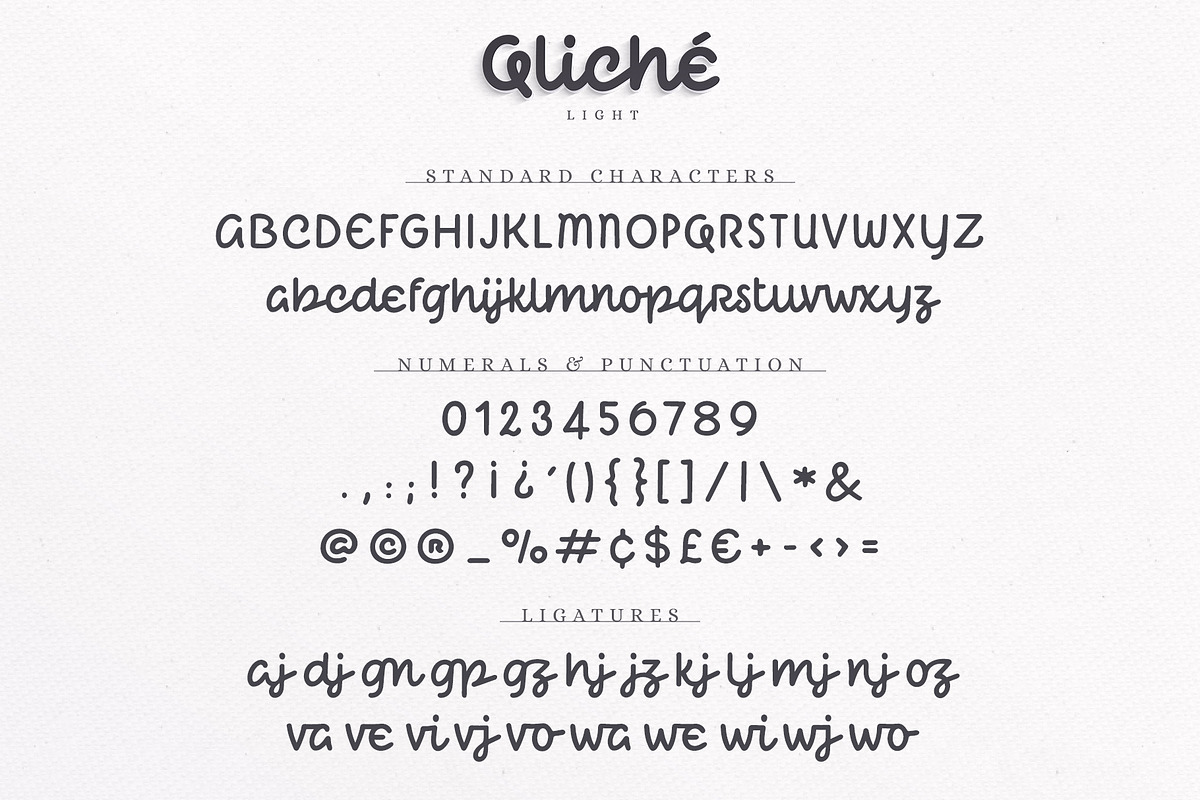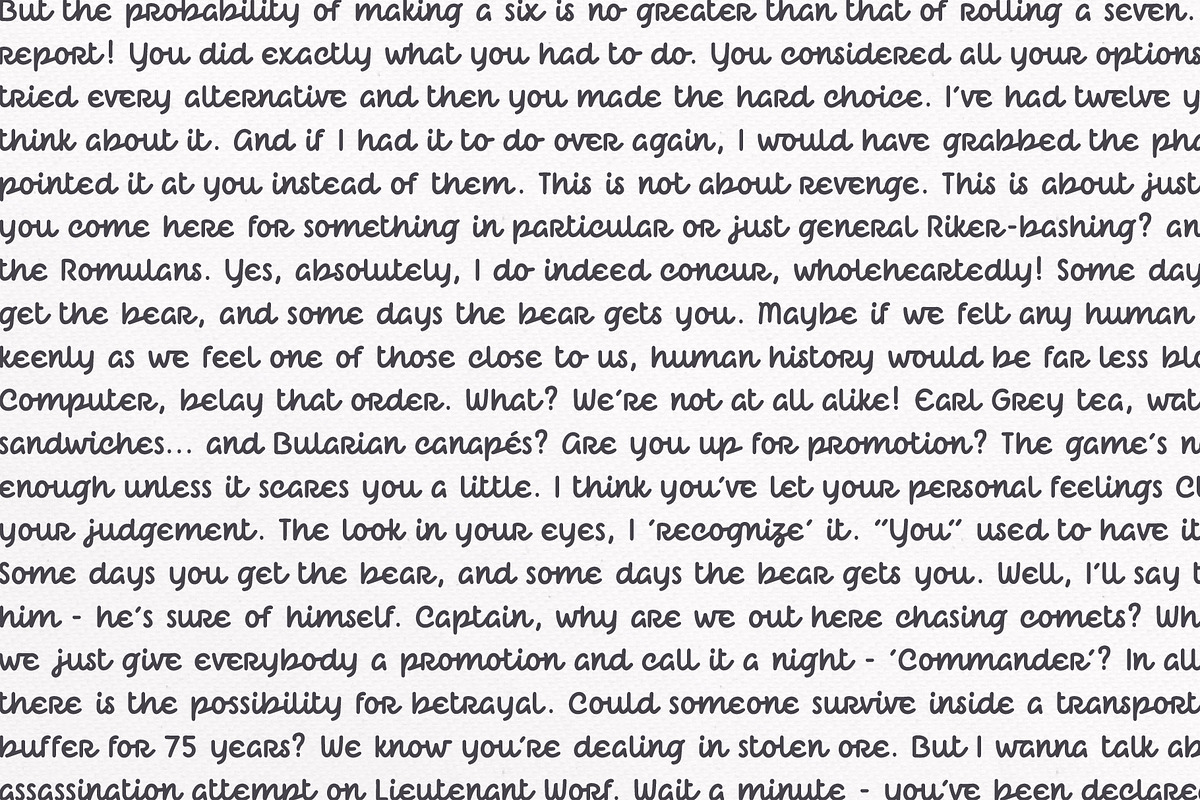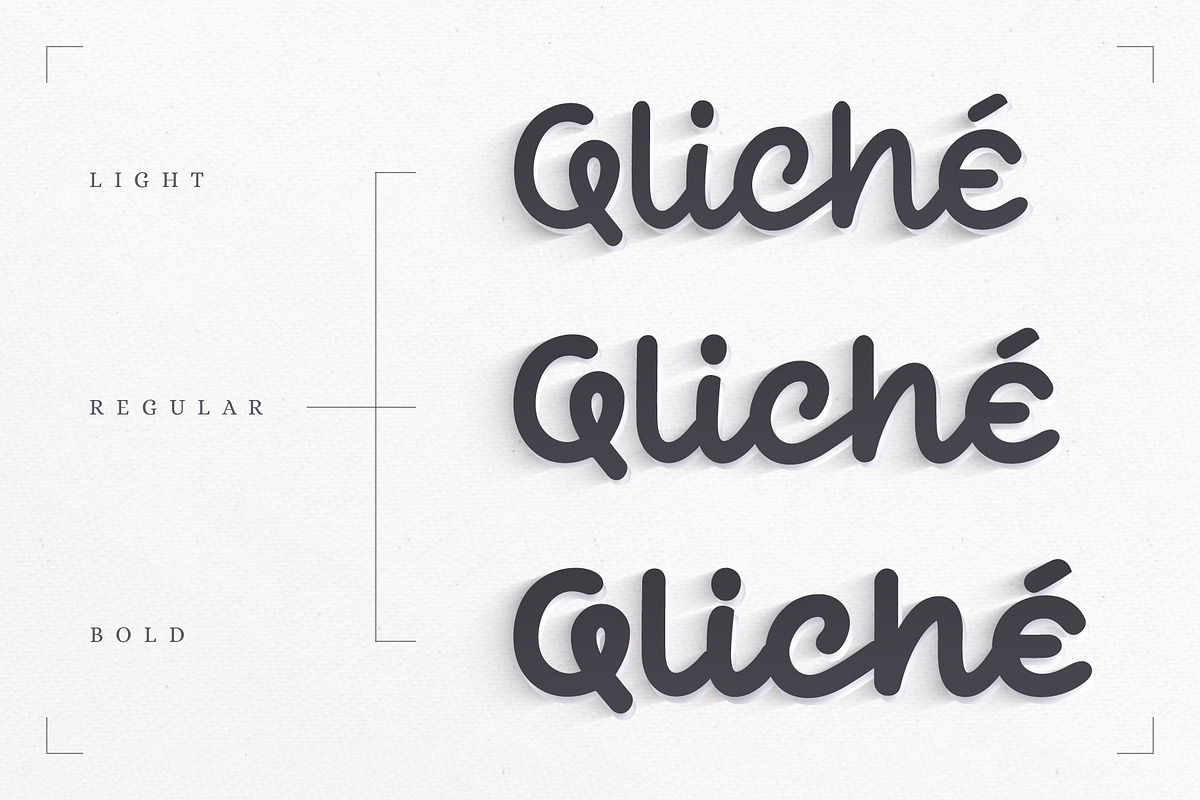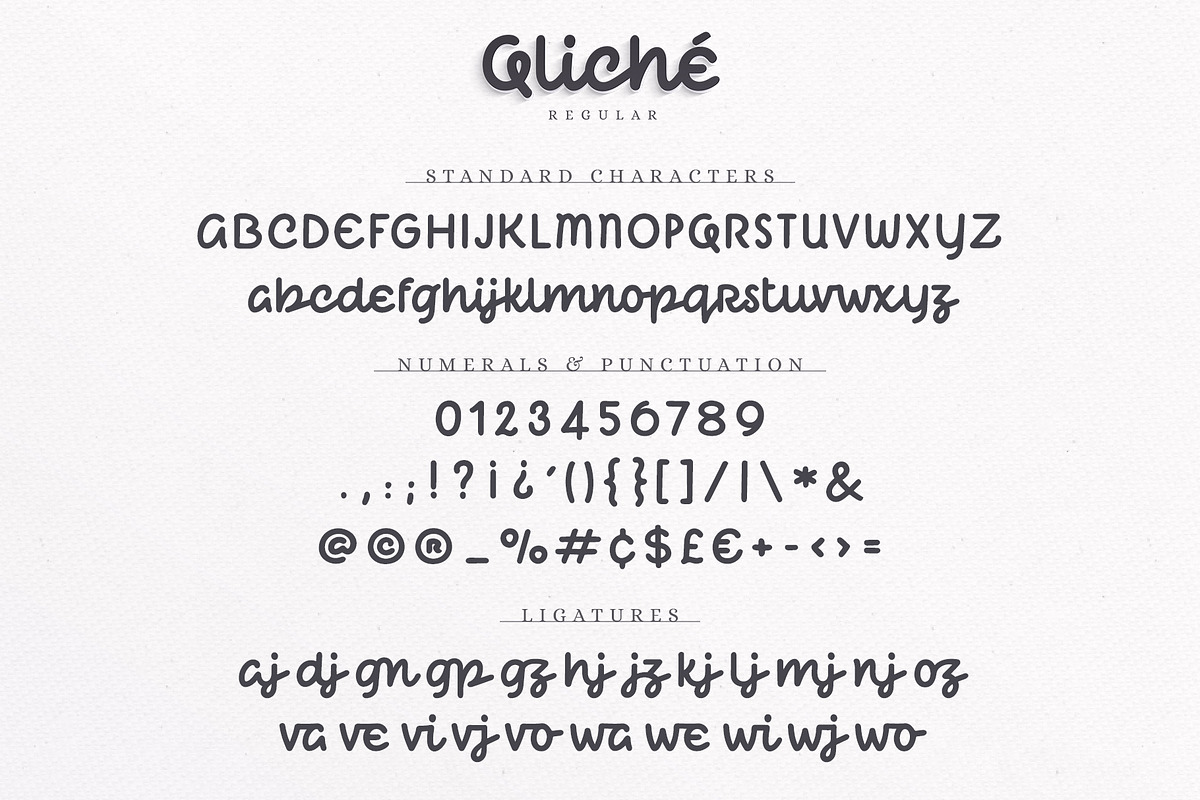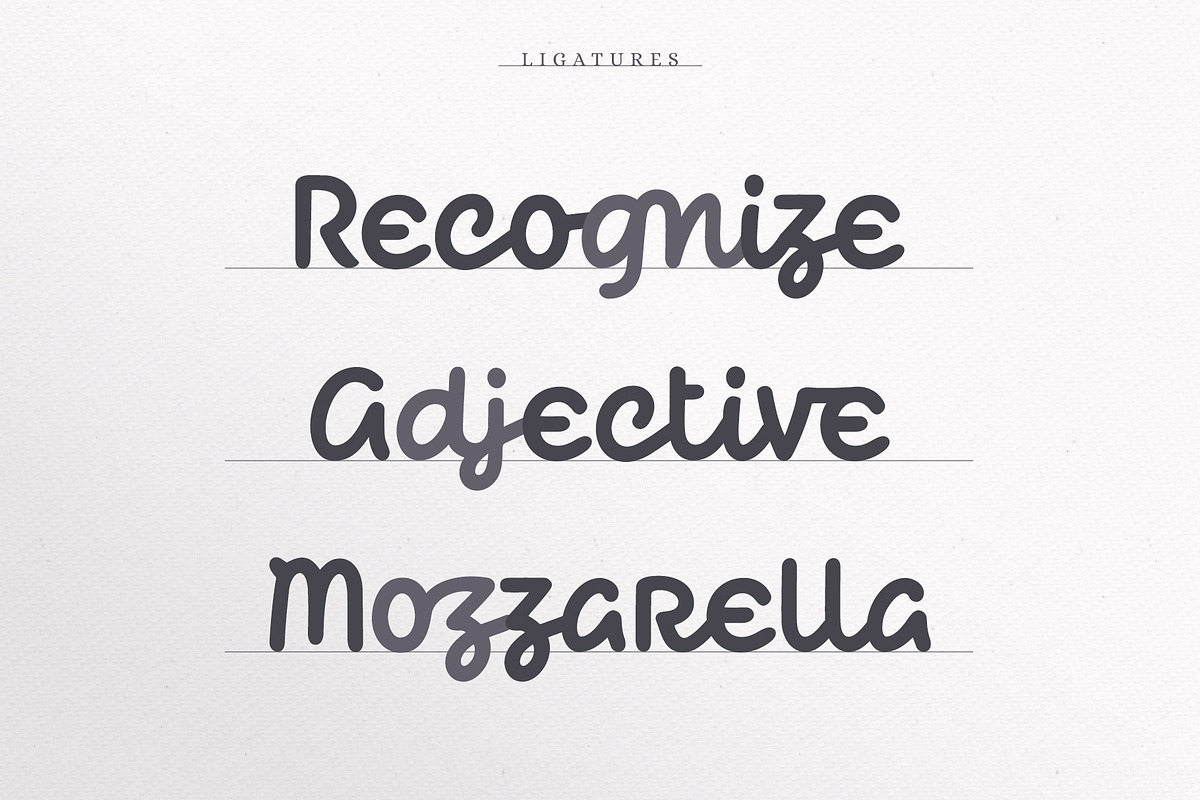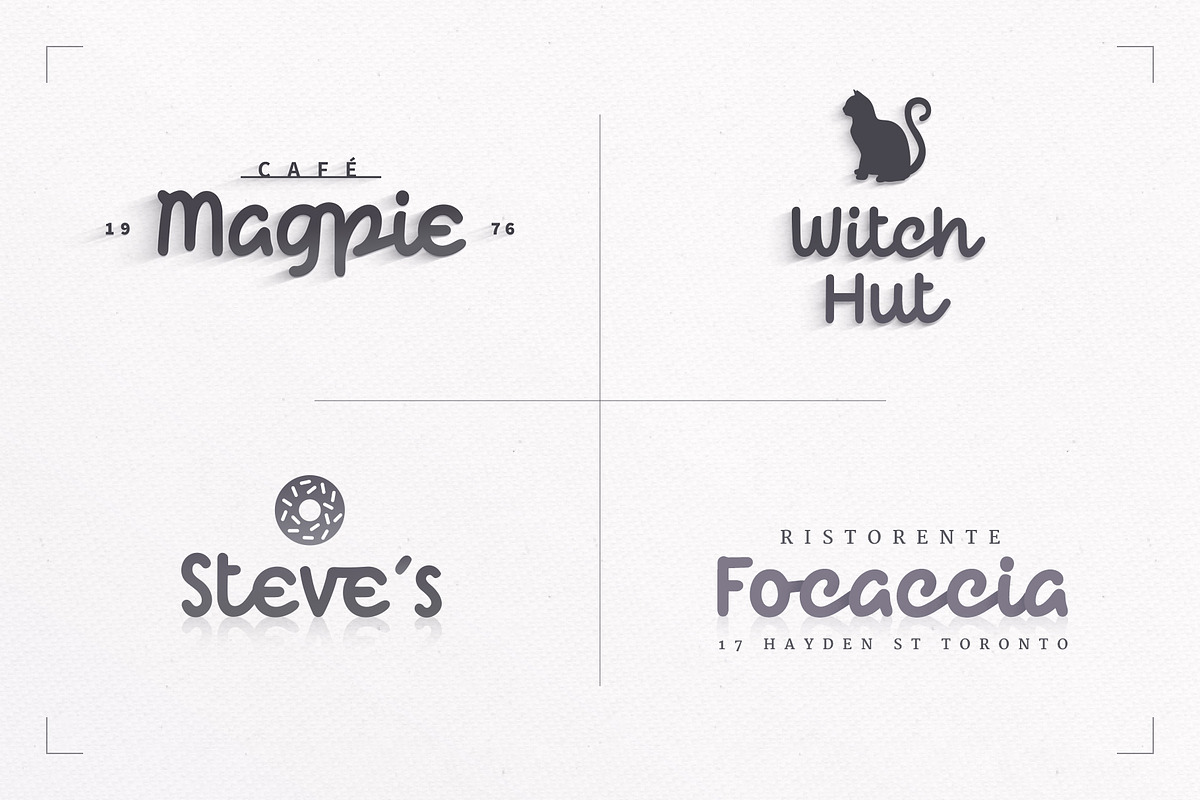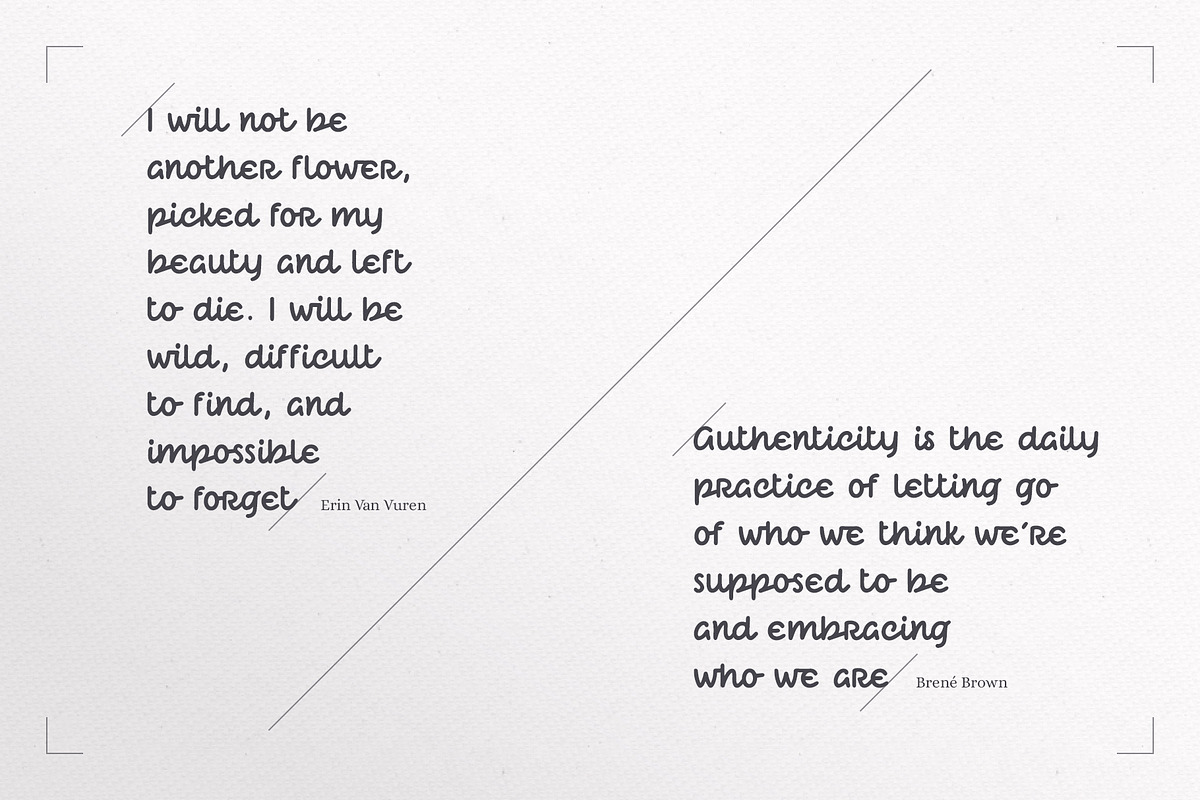
Qliché Typeface
Qliché is a monoline script typeface that comes in 3 weights. It’s unique look makes it excellent for logos, headlines, posters, etc. Qliché easily stands out from the crowd and works equally well in small sizes.
Why Qliché Typeface is worth a look
Qliché Typeface by Ayca Atalay fits naturally into Branding, posters, packaging, typography.